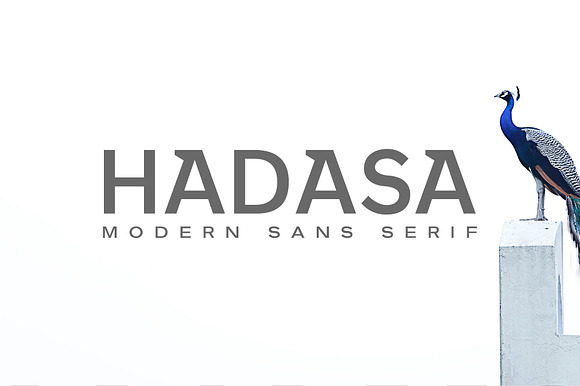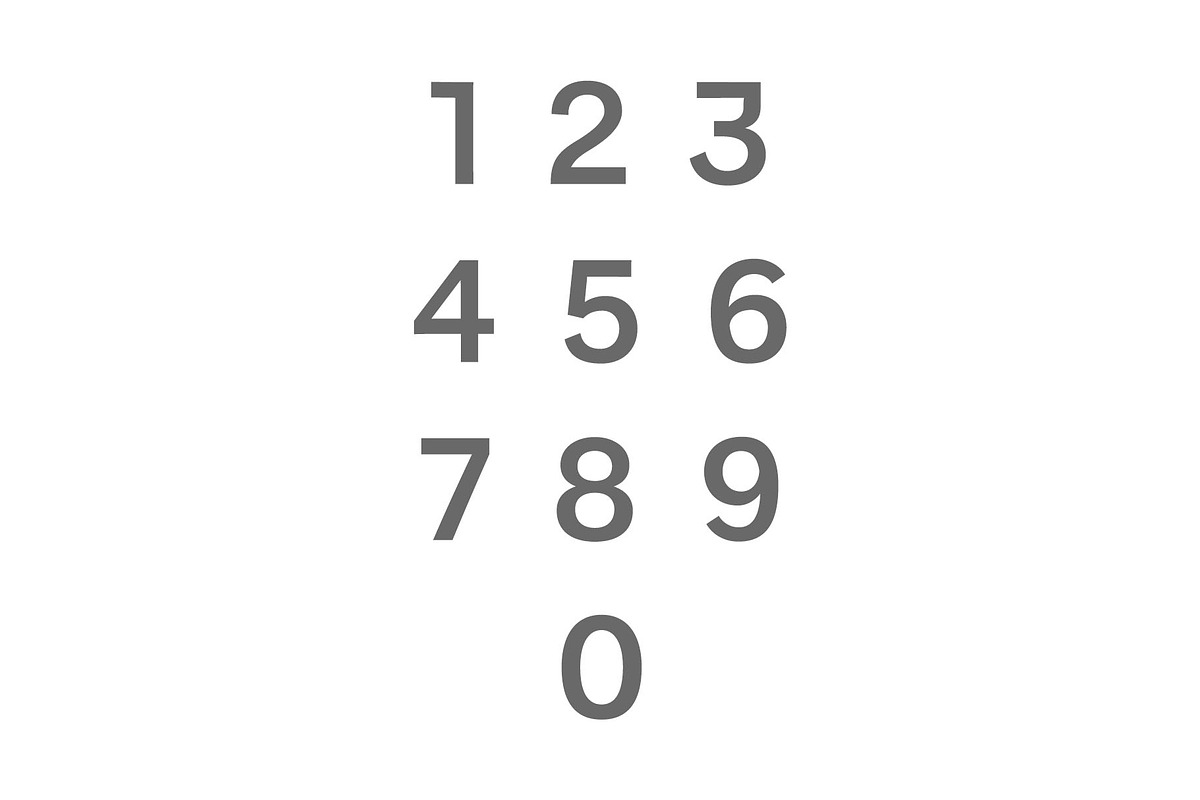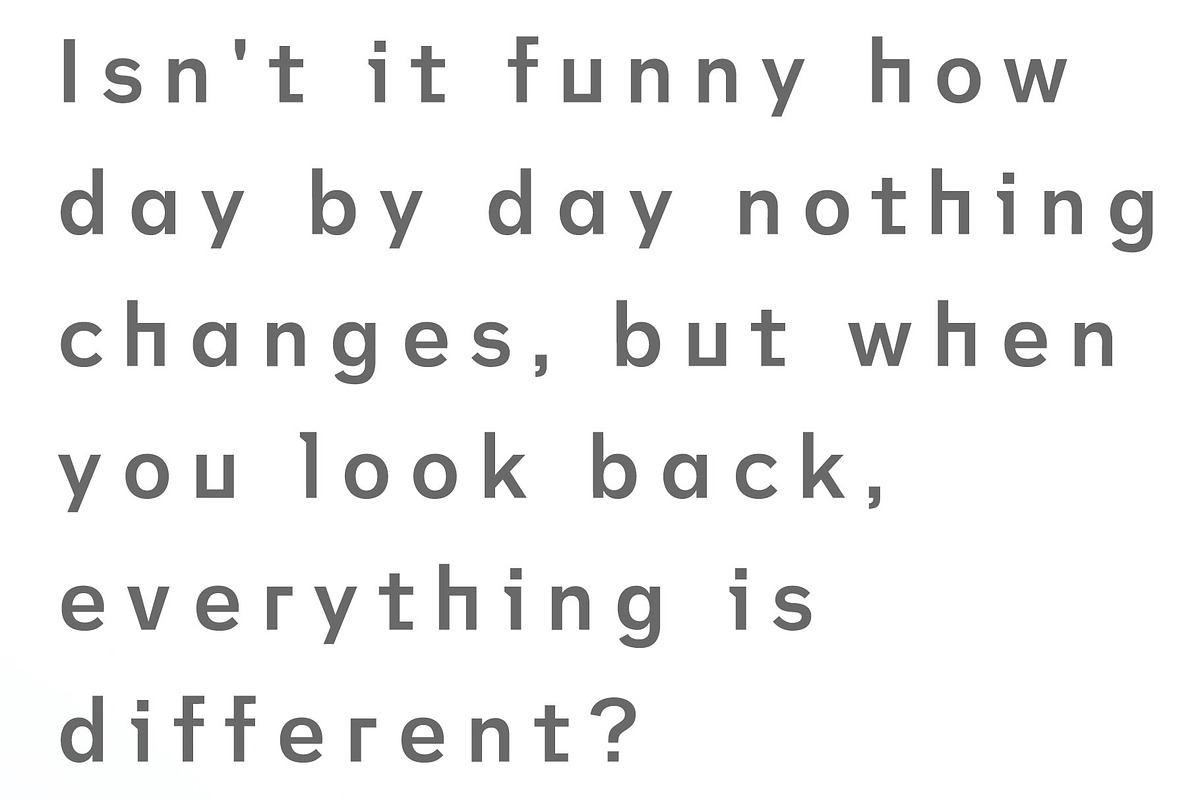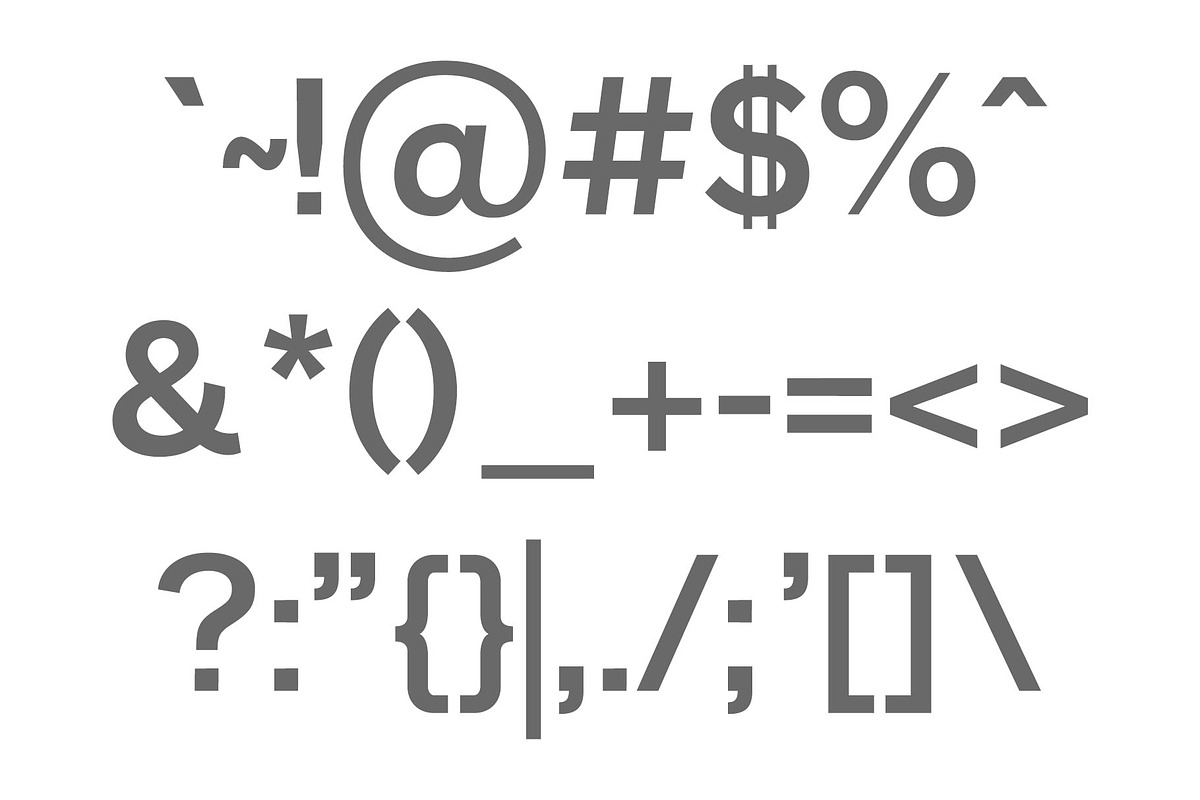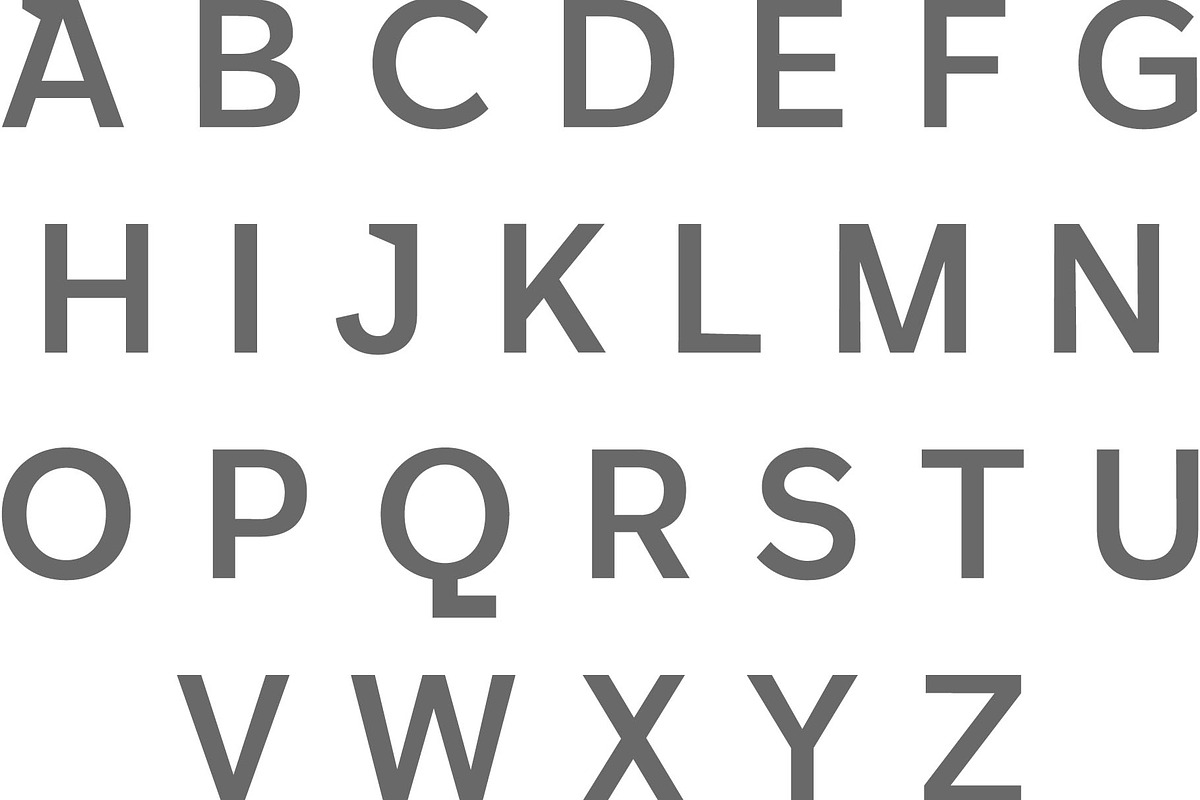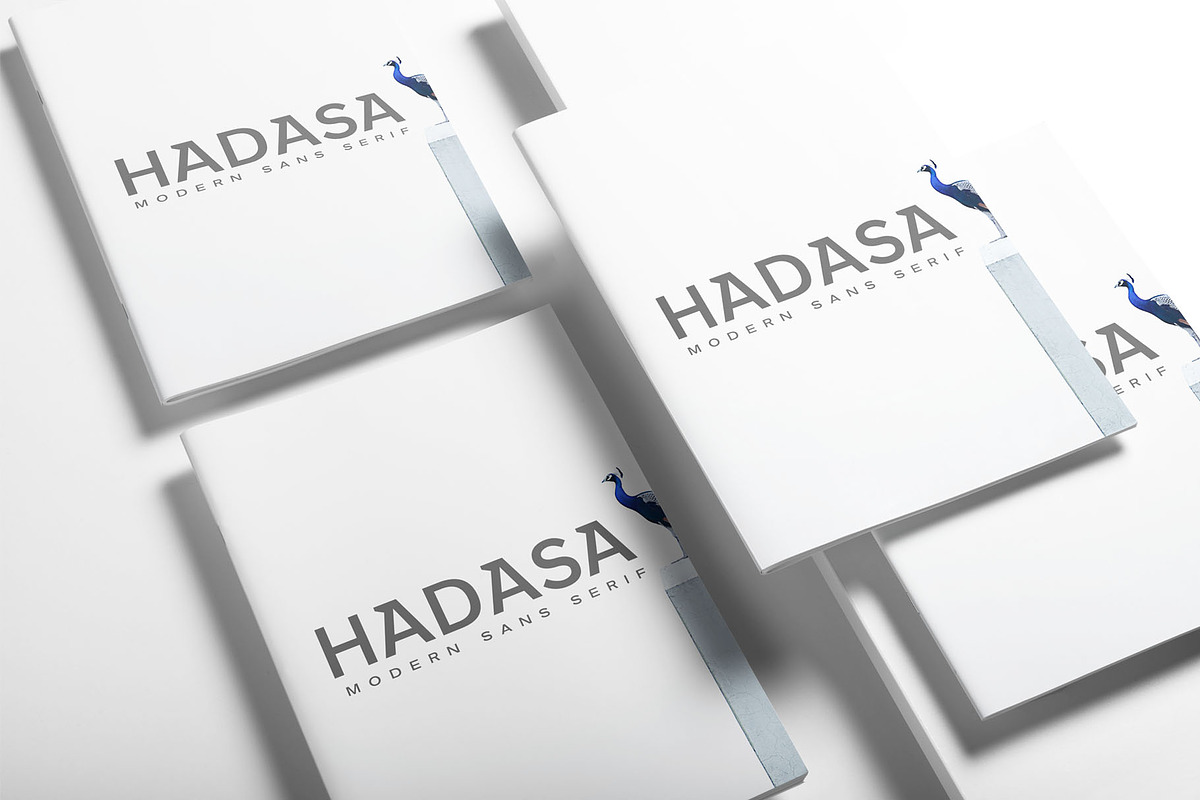
Hadasa Sans Serif Font Family
Hadasa Sans Serif Font Family is a modern luxurious sans serif typeface that looks stunning in every context. It contains 2 weights. Hadasa is great for magazine, logos, invitations, text, presentations, posters, notices, titles, name card, web layouts, headers, branding, weddings, social media, product design, stationery and advertising, and other any business related.
Why Hadasa Sans Serif Font Family is worth a look
Hadasa Sans Serif Font Family by Symufa fits naturally into Branding, posters, packaging, typography.